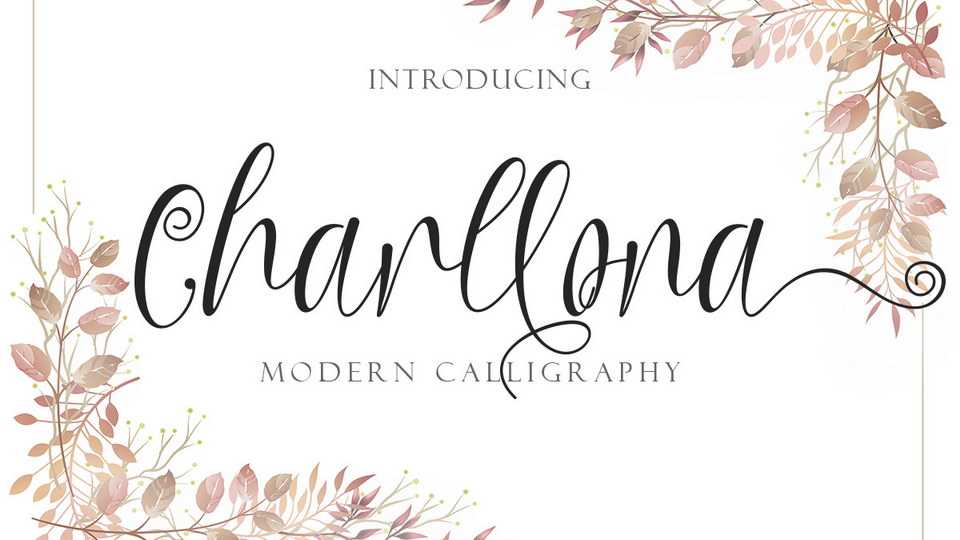
Download Charllona font, a very beautiful and unique typeface. Charllona is perfect for all types of your work like for all wedding designs, your business promotion, products, services and more.